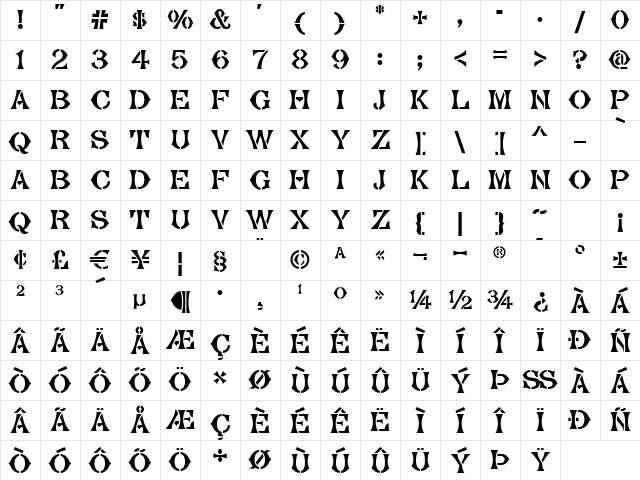
Complete Sulphur Springs WBW Medium glyph index. Displaying only characters natively supported by Sulphur Springs WBW Medium font.
Sulphur Springs WBW is a composed and adaptable typeface that performs quietly and consistently across a wide range of design contexts.